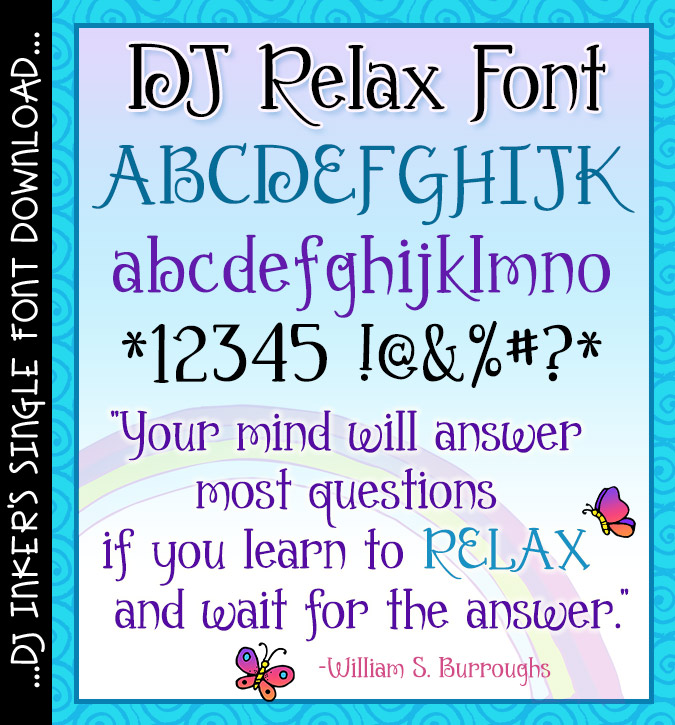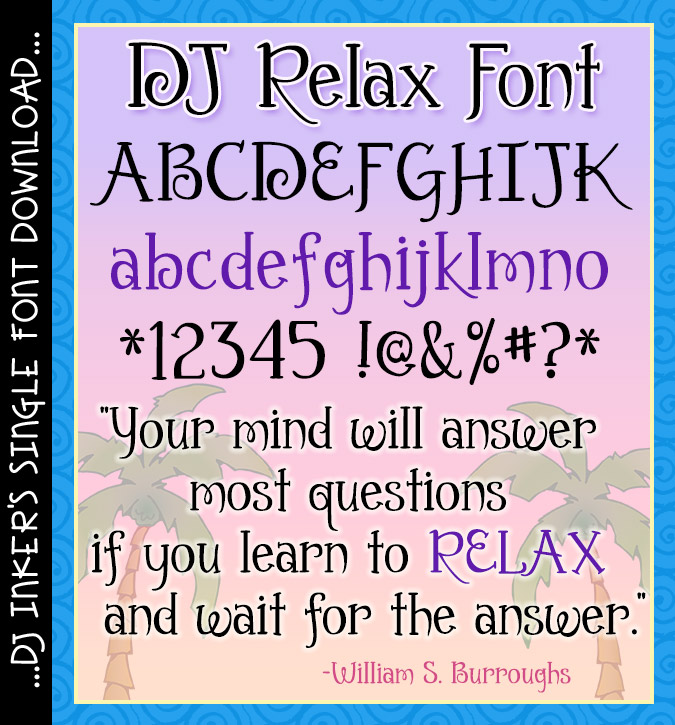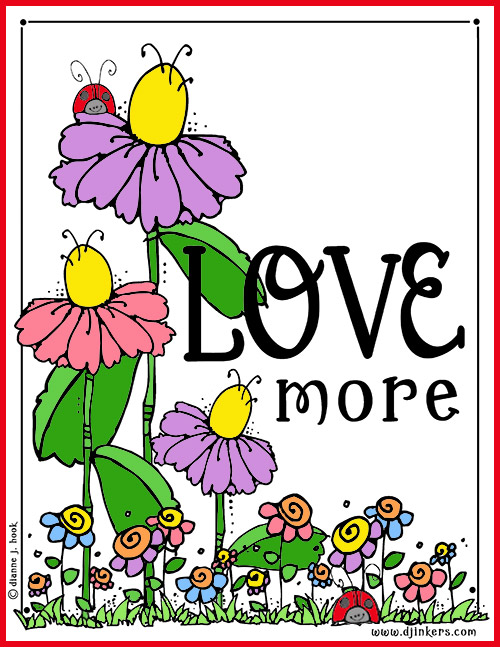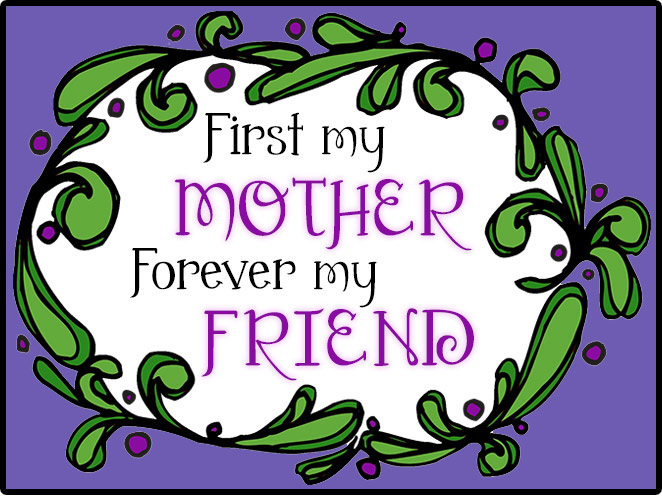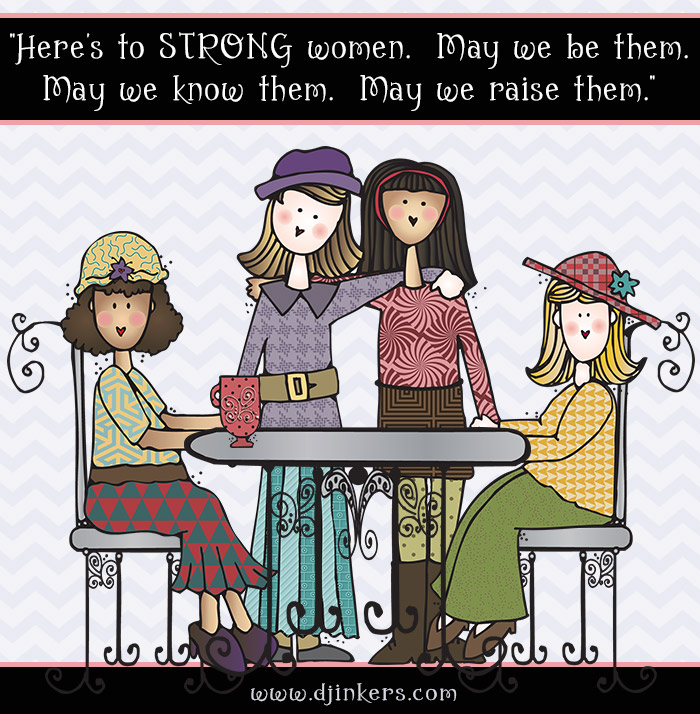
Relax! You found a lovely brush lettering font by DJ Inkers. Just sit back and let DJ Relax help you add style and charm to your creations, whether you need an eye-catching headline or just something short and sweet.